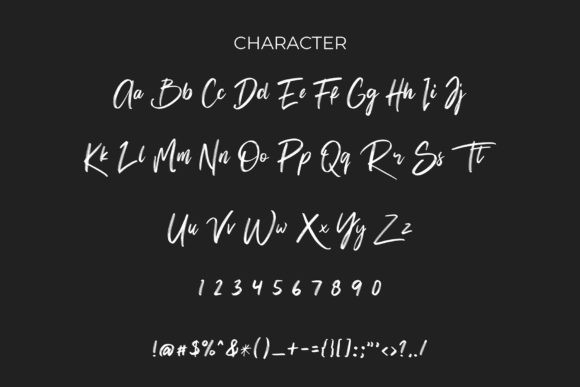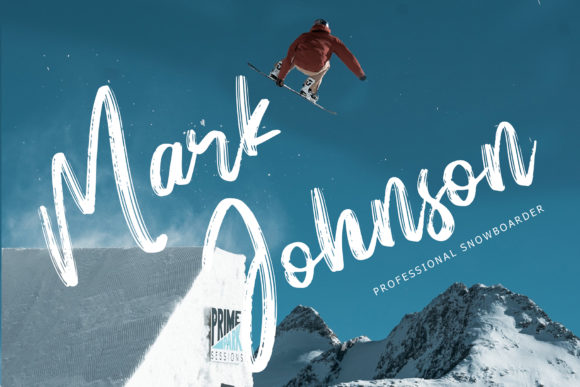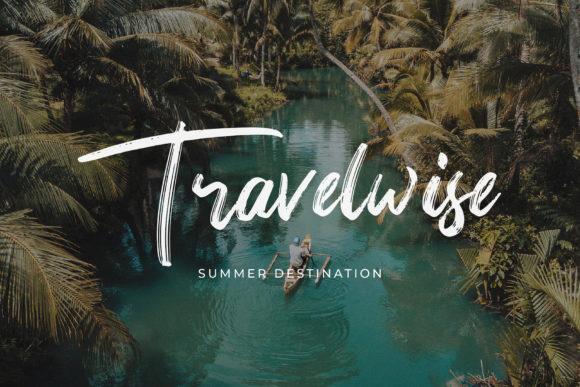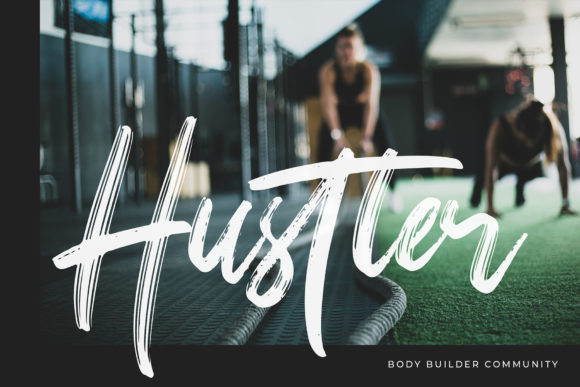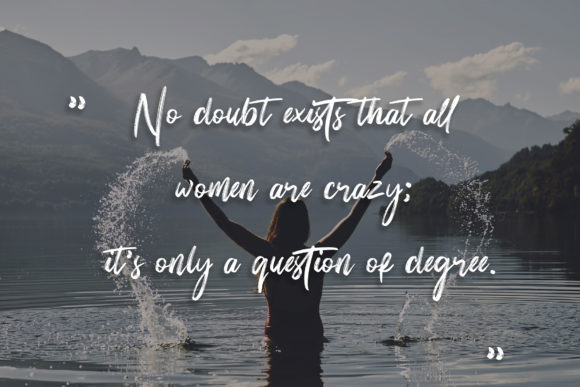
The Christine Font: A Casual, Fun Handwritten Style for Creative Projects
I still remember the design project that led me to discover the Christine font. I was working on a branding project for a crafty DIY client, and I was struggling to find the perfect font that captured their playful and quirky personality. That’s when I stumbled upon Christine, a casual, fun handwritten font created by using a brush pen. Clean and a little bit quirky, this font was the perfect fit for my client’s project, and I’ve been hooked ever since.
An Honest Review of Christine Font
What I Love About Christine Font
- ✨ Unique and playful personality: Christine font has a distinct, hand-crafted feel that adds a personal touch to any design project.
- ✅ Clean and legible: Despite its playful nature, Christine font is surprisingly clean and easy to read, making it perfect for body text and headings.
- 💫 Versatile and adaptable: Christine font works well in a variety of design contexts, from logos and branding to social media graphics and crafty DIY projects.
While Christine font is an excellent choice for many design projects, there are a few quirks to be aware of:
- 🤔 Limited formal settings: Due to its casual, handwritten nature, Christine font may not be the best fit for formal or corporate design projects.
- ⚠️ Some glyphs may require manual adjustment: As with any font, some glyphs or special characters may require manual adjustment to ensure proper spacing and alignment.
The Backstory Behind Christine Font
Christine font was designed by a talented type designer who wanted to create a font that captured the playful, creative spirit of handmade crafts. Inspired by the imperfections and quirks of brush-pen writing, Christine font is a unique and charming addition to any design project.
Q: What is Christine font best used for?
A: Christine font is perfect for casual, creative projects such as logos, branding, social media graphics, and crafty DIY projects.
Q: Is Christine font suitable for body text?
A: While Christine font is legible, it’s best used for headings and titles. For body text, a clearer font may be more suitable.